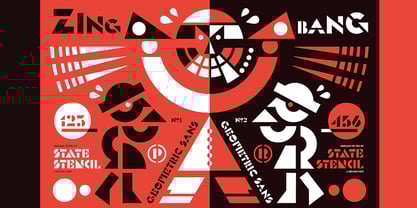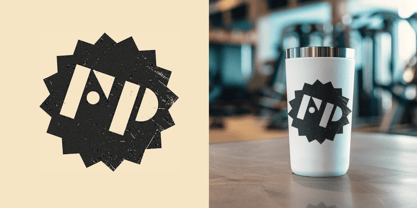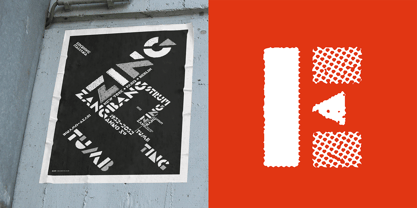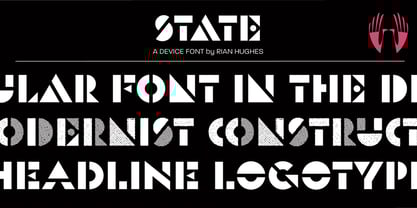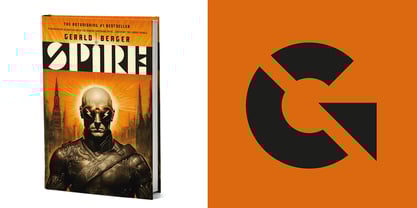
State
by Device
A futurist inspired geometric stencil in clean and rough versions. This design approach was distilled into a more regular typeface in Futura Black; State takes its inspiration from the more eccentric designs that predated that font.
Designers: Rian Hughes
Foundry: Device